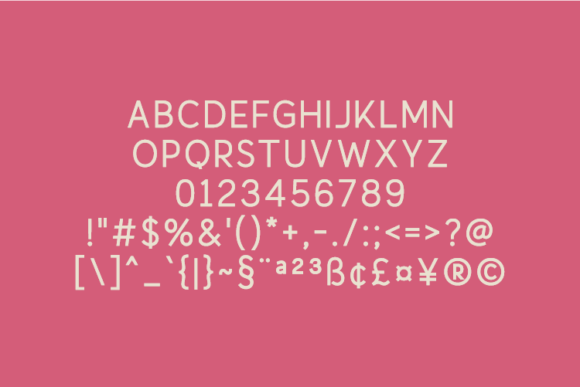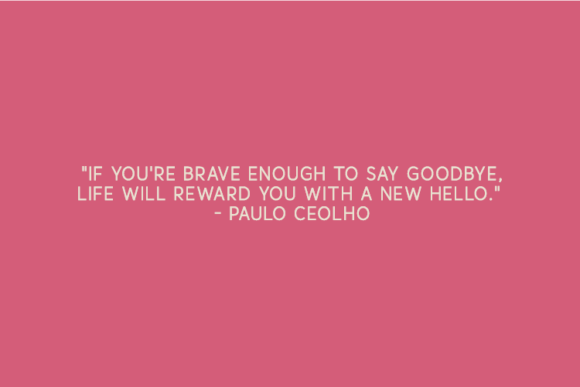
Cavalier Font: Elevate Your Designs with a Stunning Sans Serif
Are you tired of using the same old fonts in your designs? Look no further than the Cavalier font, a beautiful sans serif typeface that is sure to take your projects to the next level. Whether you’re a designer, crafty DIY enthusiast, or simply someone who loves to create, Cavalier is the perfect complement to every project you’re working on.
What is Cavalier Font?
Cavalier is a modern sans serif font that exudes elegance and sophistication. Its clean lines, precise curves, and balanced proportions make it a versatile typeface that can be used for a wide range of applications. From creating stunning headings and gorgeous invitations to designing eye-catching logos and more, Cavalier is the perfect choice for anyone looking to add a touch of refinement to their work.
Key Features of Cavalier Font
- Clean and Modern Design: Cavalier’s sans serif design gives it a fresh and contemporary feel that’s perfect for modern designs.
- Highly Versatile: Whether you’re creating headings, body text, or titles, Cavalier is a versatile font that can be used for a wide range of applications.
- Elegant and Sophisticated: With its precise curves and balanced proportions, Cavalier exudes elegance and sophistication, making it perfect for high-end designs.
- Easy to Read: Cavalier’s clear and legible design makes it easy to read, even at small sizes.
How to Use Cavalier Font
Cavalier is a highly versatile font that can be used for a wide range of applications. Here are just a few ideas to get you started:
- Create Stunning Headings: Use Cavalier to create eye-catching headings that grab attention and add visual interest to your designs.
- Design Gorgeous Invitations: Whether you’re planning a wedding, birthday party, or other special event, Cavalier is the perfect font for creating beautiful invitations.
- Make a Lasting Impression with Logos: Use Cavalier to create stunning logos that showcase your brand’s personality and style.
- Add a Touch of Elegance to Your Website: Cavalier is a great font for web designers who want to add a touch of sophistication to their website designs.
Why Choose Cavalier Font?
With so many fonts to choose from, why should you choose Cavalier? Here are just a few reasons:
- Unique and Distinctive: Cavalier is a unique and distinctive font that will help your designs stand out from the crowd.
- High-Quality Design: Cavalier is a high-quality font that is designed to look great on any device or platform.
In conclusion, Cavalier font is a stunning sans serif typeface that is sure to elevate your designs to the next level. With its clean lines, precise curves, and balanced proportions, Cavalier is the perfect complement to every project you’re working on. Whether you’re a designer, crafty DIY enthusiast, or simply someone who loves to create, Cavalier is a great choice for anyone looking to add a touch of elegance and sophistication to their work.